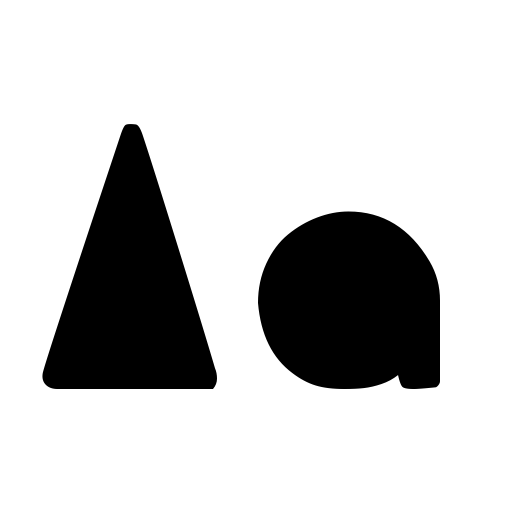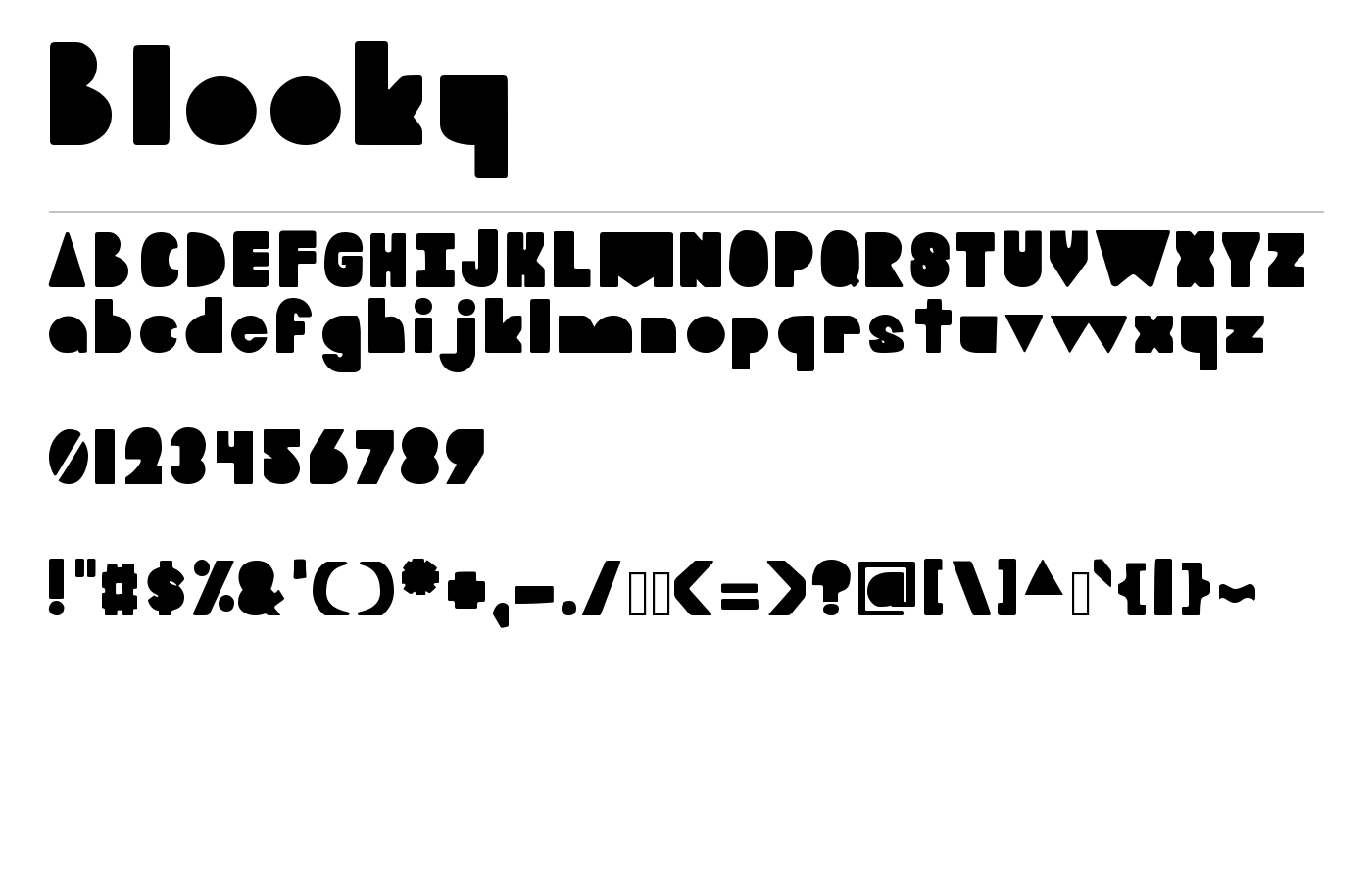
Blooky is a bold, blocky sans serif font with a playful and retro vibe. Its thick, geometric letterforms and unique shapes give it a strong presence, making it ideal for eye-catching headlines, logos, and creative branding projects that want to convey a fun, quirky personality. This font works best in designs where a distinctive, energetic style is desired.
Blooky Font
About Blooky Font